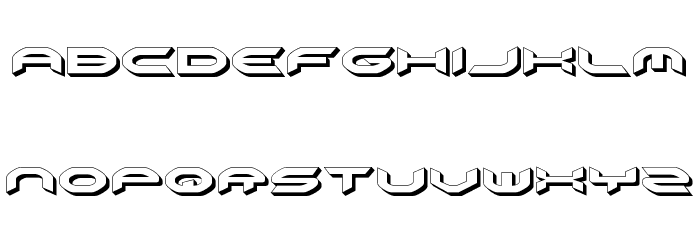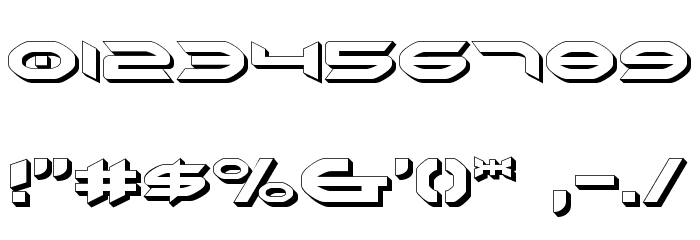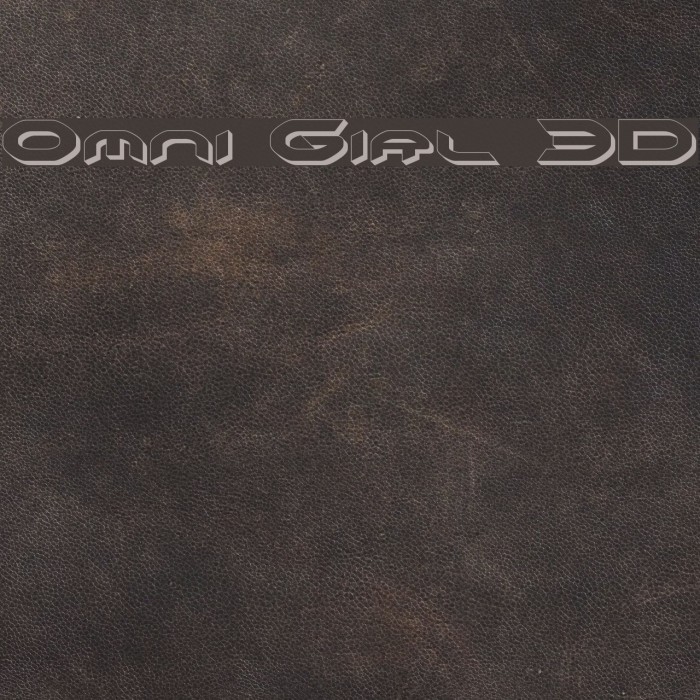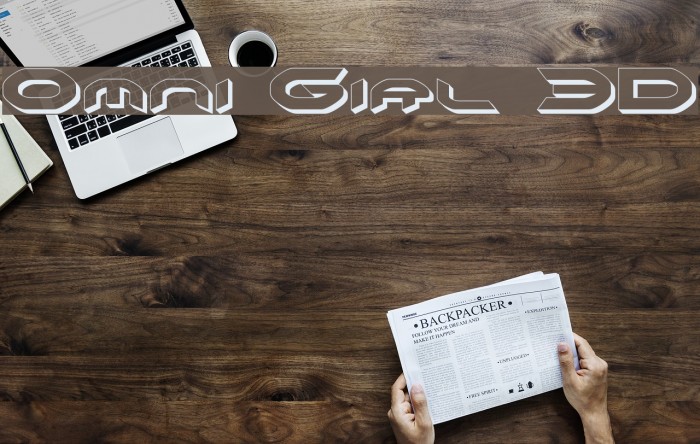
Omni Girl 3D Font
This font features a bold, futuristic 3D design with a distinct shadow effect that gives each character a sense of depth and dimension. The geometric structure of the letters is enhanced by sharp angles and clean lines, creating a modern and dynamic appearance. The uppercase and lowercase letters maintain a consistent style, while the numerals and special characters are designed to complement the overall aesthetic. The font's unique style makes it stand out, making it ideal for projects that require a contemporary and eye-catching look.
A bold, futuristic 3D font with sharp angles and a shadow effect.
- Proposed Projects: Ideal for sci-fi themed designs, video game graphics, posters, and branding that requires a modern, eye-catching look.